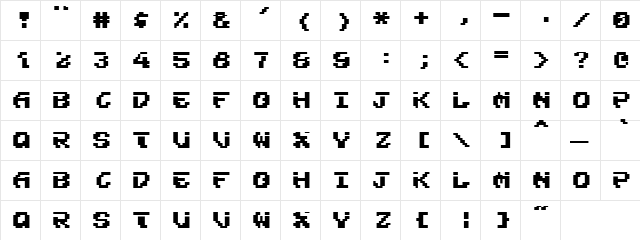
Much More Regular
Design Context for Much More Typeface
Much More is a composed and adaptable typeface that performs quietly and consistently across a wide range of design contexts.